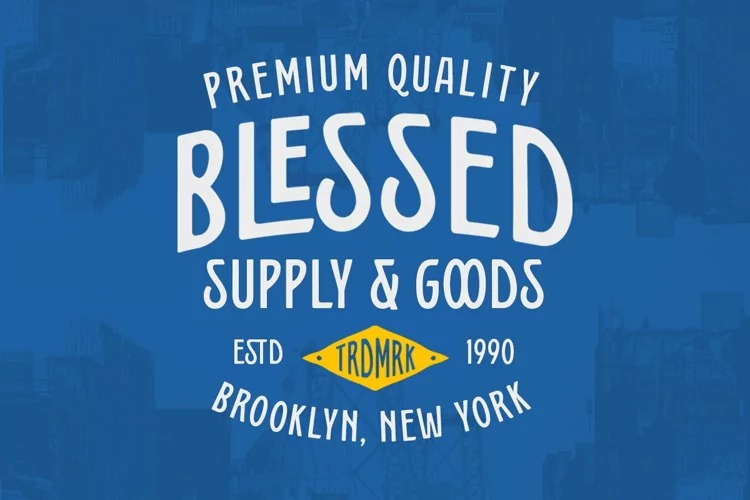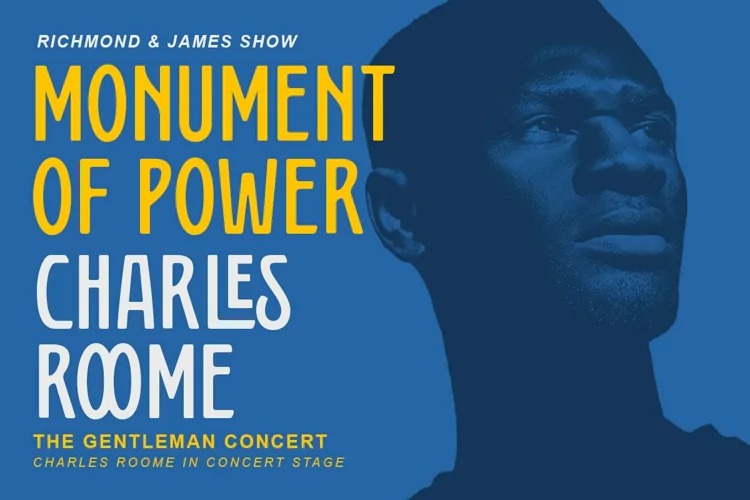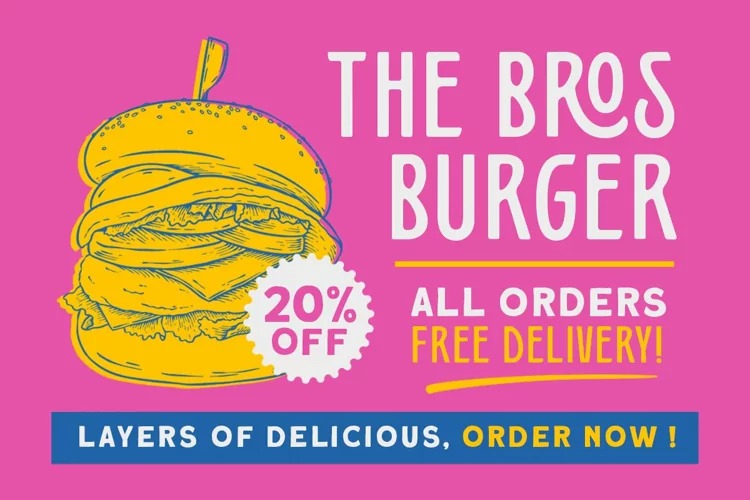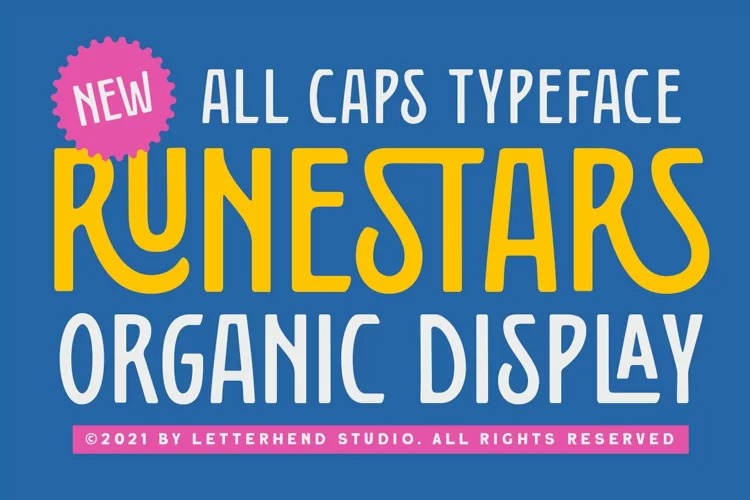
Runestars Font
Runestars Display Font
This is industrial typeface font inspired by the Luggage Labels from the 19th Century. This typeface has unique looks and strong character with natural looks because it was made by manual hand lettering. This font perfectly made to be applied especially in logo, and the other various formal forms such as invitations, labels, magazines, books, greeting / wedding cards, packaging, fashion, make up, stationery, novels, labels or any type of advertising purpose.